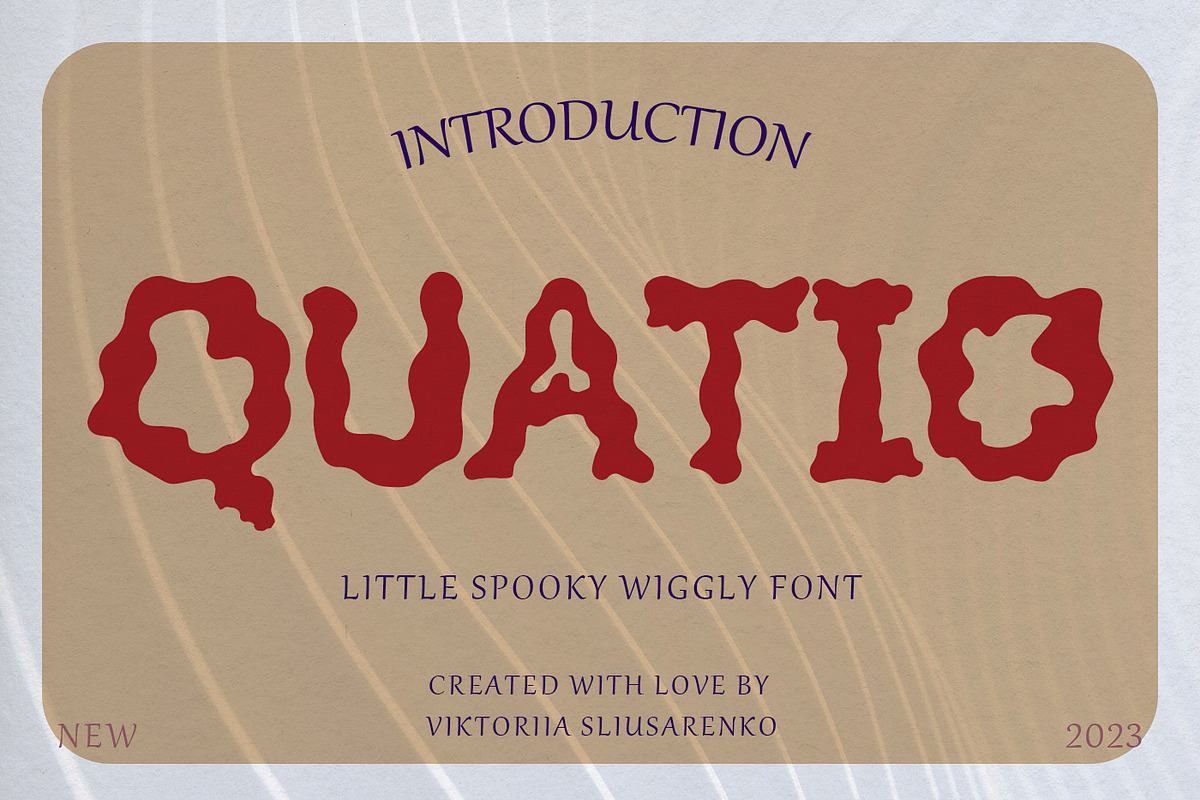
QUATIO wiggly font Free Download
QUATIO Wiggly Font Free Download
QUATIO Wiggly Font Free Download is a fun, funky, and delightfully unpredictable typeface that dances with personality. With its wavy, distorted letterforms and playful energy, this font is perfect for creative posters, music artwork, party invitations, retro branding, kids' designs, and anything that needs a bold dose of quirky charm.
QUATIO Wiggly Font Free Download stands out from the crowd by embracing movement and irregularity—making every word feel alive and full of attitude. Whether you're designing for a throwback 70s vibe or a modern twist on maximalism, this typeface adds just the right amount of wiggle to keep your audience engaged.